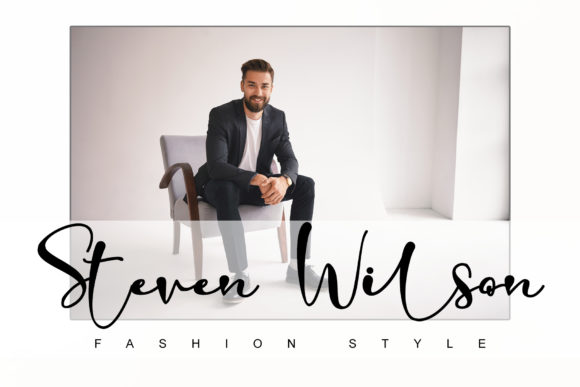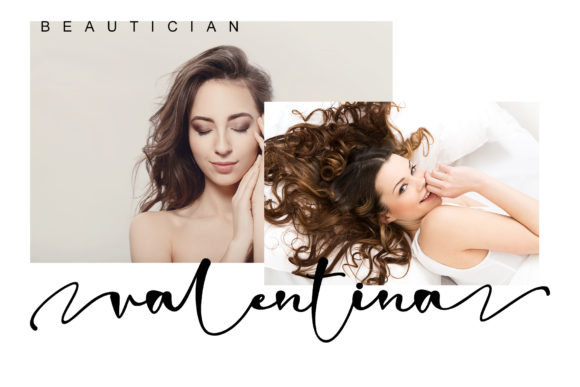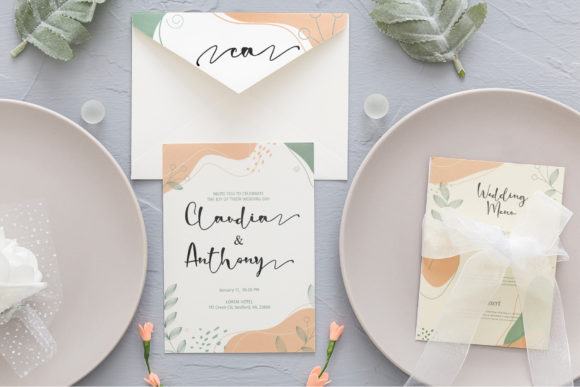
About Romantic Blossom Font
Romantic Blossom is an incredibly beautiful script font. It has a classy, beautiful, and modern look that can be used for logos, branding, invitations, stationery, wedding designs, social media posts, and much more!
This font is PUA encoded which means you can access all of the glyphs and swashes with ease! It features a varying baseline, smooth lines, gorgeous glyphs, and stunning alternates.